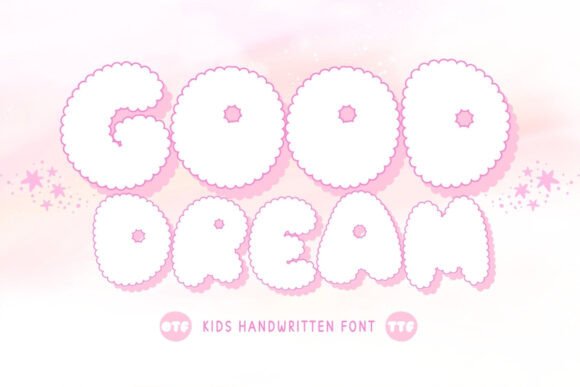
Good Dream Font: The Perfect Choice for Whimsical and Child-Centered Designs
The “Good Dream” font is a delightful, nursery-style bubble font that has captured the hearts of designers and parents alike. Its cute and playful aesthetic makes it an ideal choice for children’s projects, educational materials, and whimsical designs. In this article, we’ll explore the features and benefits of the “Good Dream” font, and how it can elevate your child-centered designs.
What is the Good Dream Font?
The “Good Dream” font is a digital font designed to resemble a bubble or a puffy, rounded letterform. Its unique and playful design makes it perfect for creating eye-catching and engaging designs for children. The font features rounded, smooth edges and a consistent letter spacing, which gives it a friendly and approachable feel.
Key Features of the Good Dream Font
- Cute and playful aesthetic: The “Good Dream” font has a unique and captivating design that is sure to delight children and parents alike.
- Rounded, puffy letters: The font features rounded, smooth edges that give it a friendly and approachable feel.
- Consistent letter spacing: The font has a consistent letter spacing, which makes it easy to read and understand.
- Support for multiple languages: The “Good Dream” font supports multiple languages, making it a versatile choice for designers and businesses with a global audience.
Uses of the Good Dream Font
The “Good Dream” font is a versatile font that can be used in a variety of design projects, including:
Perfect for Children’s Projects
- Baby shower invitations: The “Good Dream” font is perfect for creating adorable and memorable baby shower invitations.
- Kids’ apparel: The font is ideal for designing cute and playful kids’ apparel, such as t-shirts, hoodies, and onesies.
- Nursery decor: The font can be used to create beautiful and whimsical nursery decor, such as wall art, decals, and signs.
- Children’s books and educational materials: The “Good Dream” font is a great choice for creating engaging and interactive children’s books and educational materials.
Benefits of Using the Good Dream Font
The “Good Dream” font offers several benefits for designers and businesses, including:
Why Choose the Good Dream Font?
- Unique and playful aesthetic: The font’s unique design helps to create eye-catching and engaging designs that stand out from the crowd.
- Easy to read and understand: The font’s consistent letter spacing and rounded edges make it easy to read and understand, even for young children.
- Versatile and adaptable: The “Good Dream” font can be used in a variety of design projects, from children’s books to nursery decor.
- Supports multiple languages: The font’s support for multiple languages makes it a great choice for designers and businesses with a global audience.
Tips for Using the Good Dream Font
Here are some tips for using the “Good Dream” font in your design projects:
Getting the Most Out of the Good Dream Font
- Use it for headlines and titles: The “Good Dream” font is perfect for creating eye-catching headlines and titles that grab attention.
- Pair it with other fonts: The font can be paired with other fonts to create a unique and visually appealing design.
- Experiment with colors and textures: The “Good Dream” font can be used with a variety of colors and textures to create a unique and engaging design.
- Keep it simple and consistent: The font’s playful aesthetic can be overwhelming if overused. Keep your design simple and consistent to get the most out of the font.
The “Good Dream” font is a delightful and versatile font that is perfect for child-centered designs. Its unique and playful aesthetic, combined with its ease of use and versatility, make it a great choice for designers and businesses. Whether you’re creating children’s books, nursery decor, or kids’ apparel, the “Good Dream” font is sure to bring a touch of whimsy and wonder to your designs.